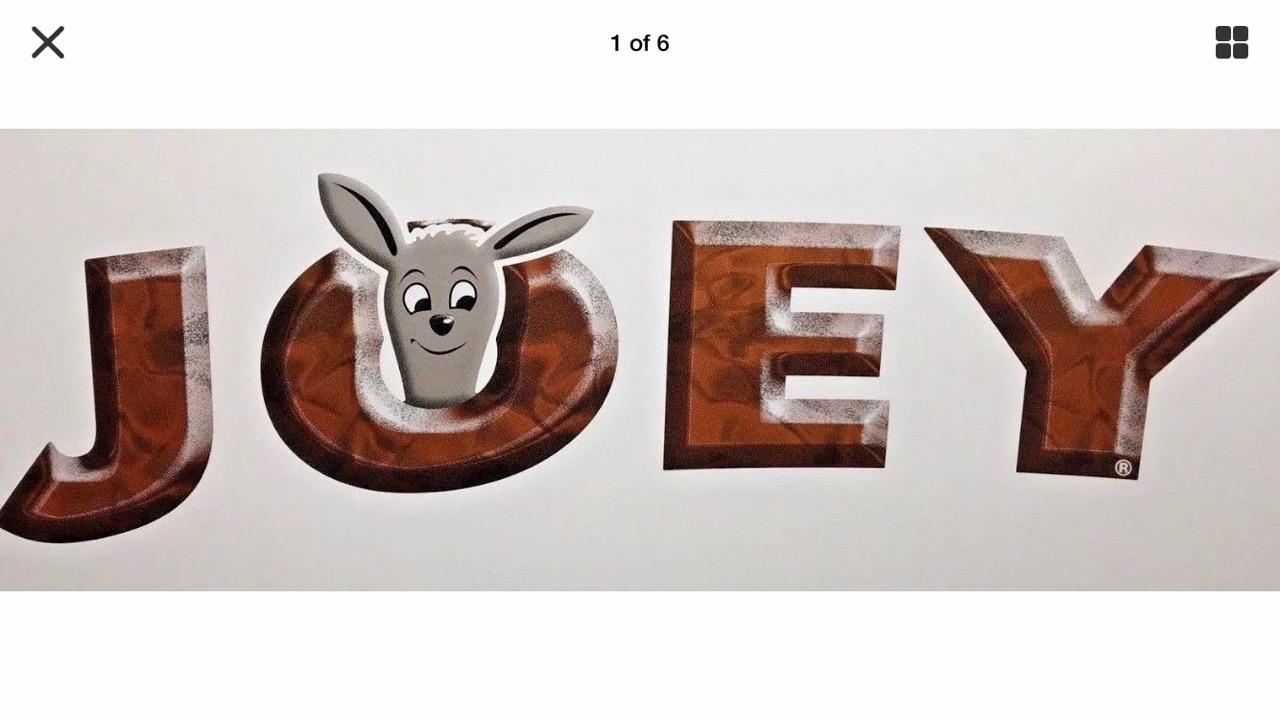
Anyone know this font.? please
I'm looking for this fonts name.
It doesn't have to be chiseled .
Even a close font will do.
It merely looks like someone took Futura Extra Bold and stretched it horizontally out of its normal proportions.